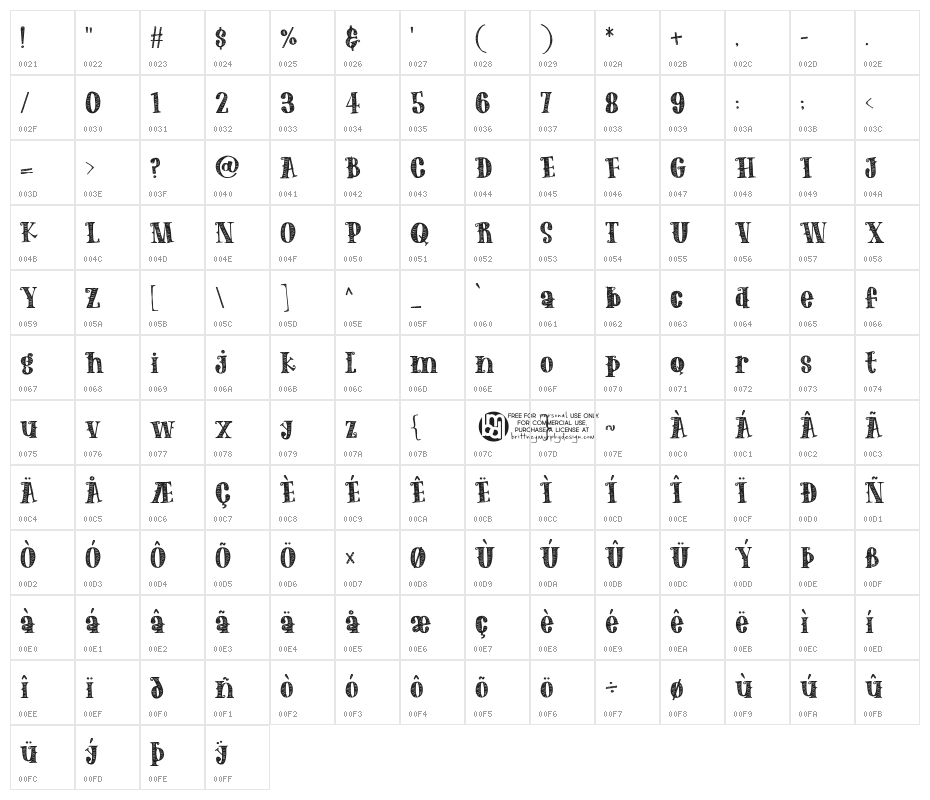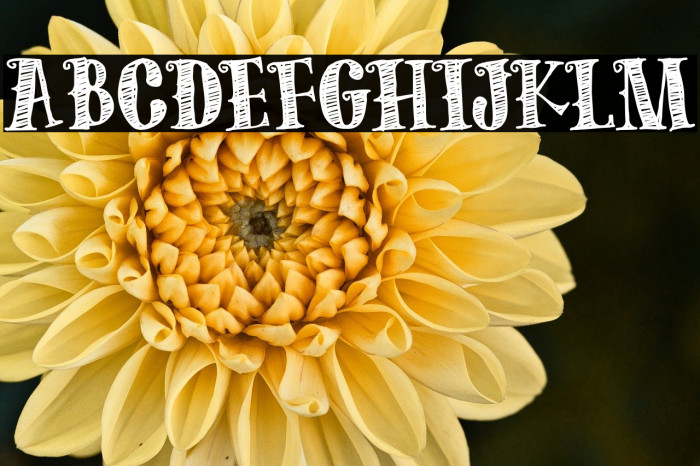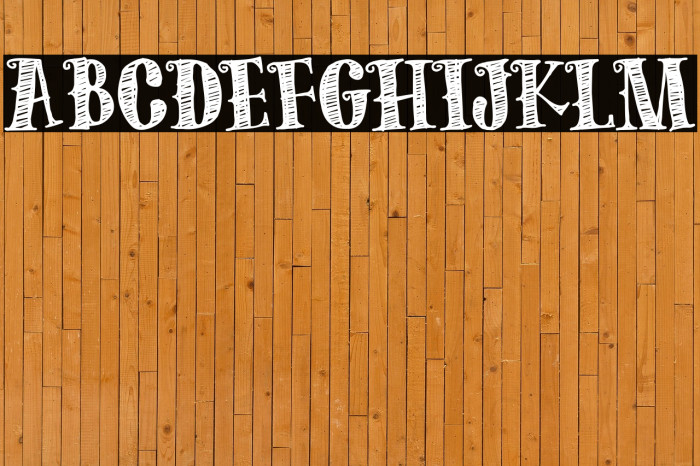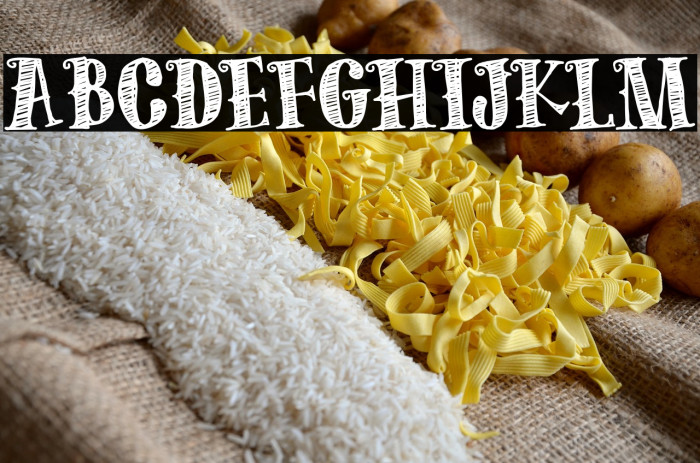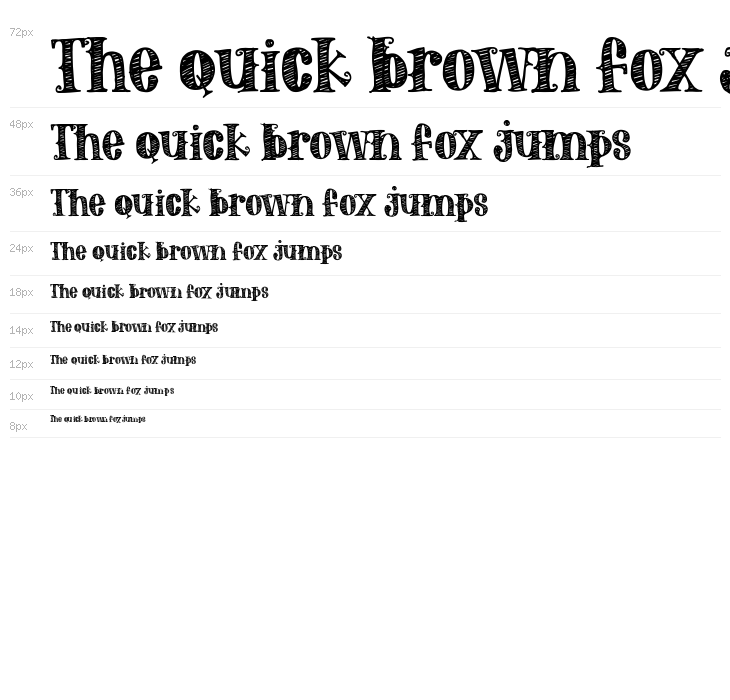
The Old Forest Font
The Old Forest Description
This font features a whimsical and decorative style with a hand-drawn appearance. Each character is adorned with intricate line details that give it a textured, almost woodcut-like effect. The letters are bold and have a playful, slightly irregular shape, which adds to their charm. The uppercase and lowercase letters maintain a consistent style, with the uppercase being slightly more elaborate. The numbers and special characters follow the same design principles, ensuring a cohesive look across all elements. This font's unique style makes it stand out, perfect for projects that require a touch of creativity and flair.
| Proposed Projects | Ideal for children's book covers, playful posters, creative branding, and whimsical invitations. |